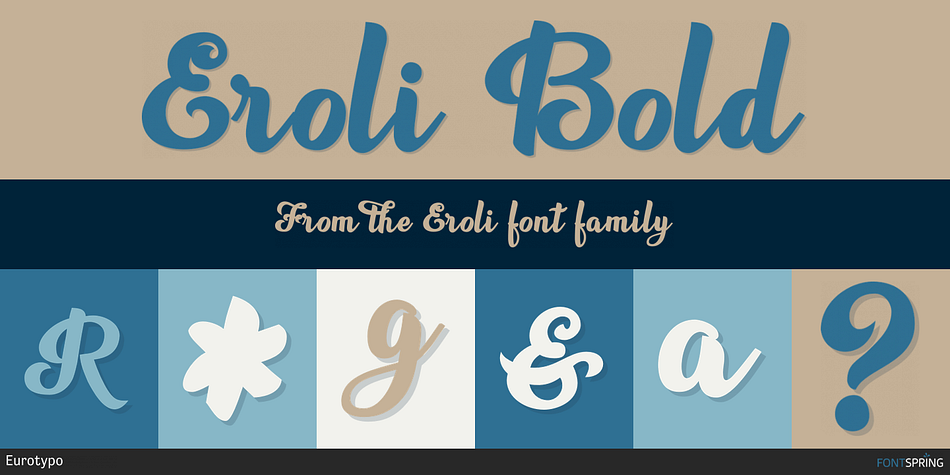
Eroli Bold
Designed by Carine de Wandeleer, Eroli is a brush script font family. This typeface has three styles and was published by Eurotypo.
Eroli is a casual handwritten font designed by Carine de Wandeleer, they are presented in in two weights and slanted version.
Each font contains full OpenType features, specially designed for packaging, posters, personal cards and children’s books.